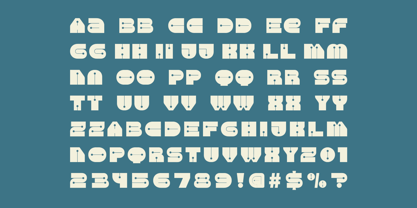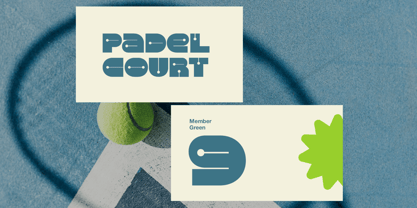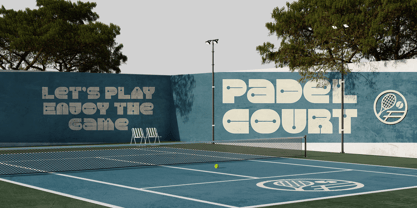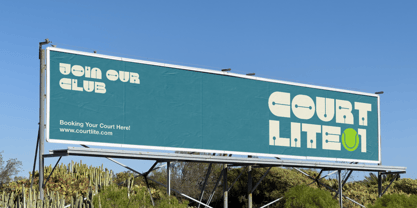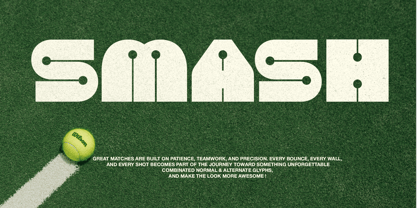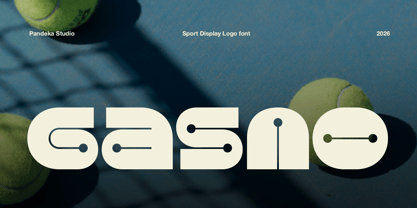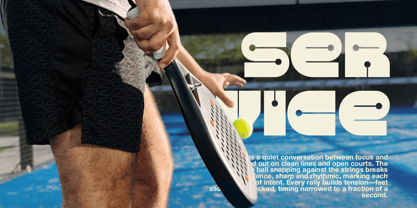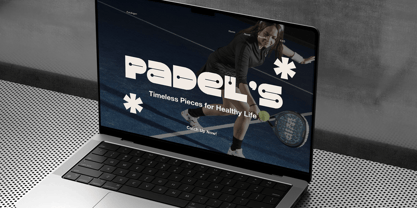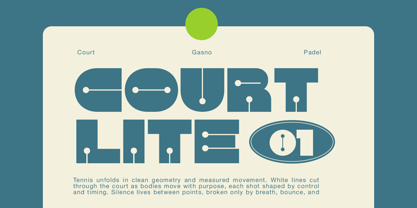
Gasno
by Pandeka Studio
The Gasno Font Family was designed by Sagara Nararya and published by Pandeka Studio. Gasno contains 1 styles. More about this family
Gasno is a sport display logo font designed with bold geometric letterforms, rounded corners, and a powerful athletic character. Its clean and modern construction creates a strong visual impact, making it perfect for sports branding, team identities, esports logos, fitness campaigns, stadium graphics, sportswear brands, posters, signage, and contemporary display projects. The solid structure ensures excellent readability while delivering a confident and energetic personality across every design.
Available in 1 style: Regular, Gasno comes with multilingual support and is built for a wide range of branding and promotional needs. Whether you're creating logos, sports event graphics, club branding, social media content, advertising materials, product packaging, or active lifestyle campaigns, Gasno provides a bold and memorable visual identity with a modern sport-inspired aesthetic.